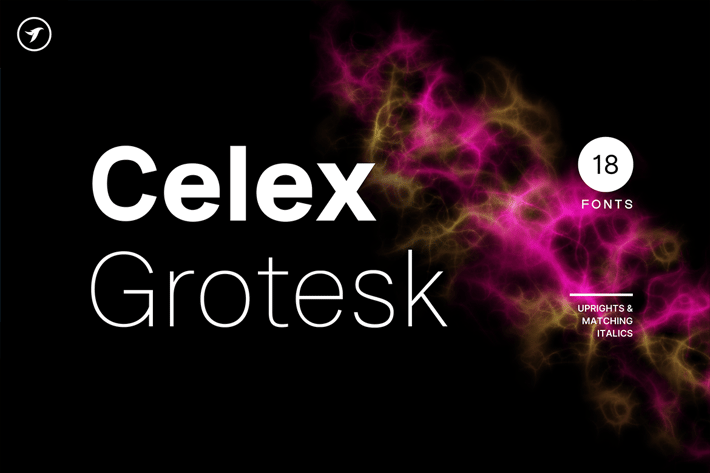
Celex Grotesk - Modern Sans-Serif Font Family
Celex Grotesk is a modern sans-serif typeface with a clean and balanced design and timeless appearance. It's perfect for creating logos, branding, headlines, corporate identities, and marketing materials for both digital and print media.
The typeface will be a great option for branding, logo/logotype design projects, marketing graphics, banners, posters, signage, corporate identities, and editorial design. Adding extra letter spacing will make this font the perfect choice for minimal headlines and logotypes, as shown in the promo designs attached.
FEATURES:
The Celex Grotesk font family includes 18 fonts in total, with nine upright weights and Italic equivalents of all nine weights as follows:
Thin
Thin Italic
ExtraLight
ExtraLight Italic
Light
Light Italic
Book
Book Italic
Regular
Italic
Medium
Medium Italic
SemiBold
SemiBold Italic
Bold
Bold Italic
Black
Black Italic